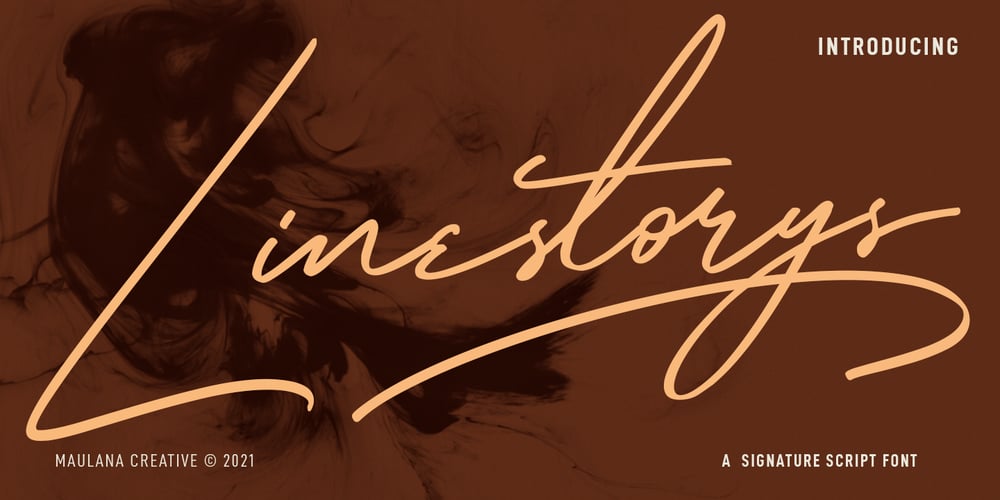
MC Linestorys
MC Linestorys font
MC Linestorys Font Family was designed by Gilang Maulana and published by Maulana Creative. MC Linestorys contains 2 styles and family package options. Linestorys is a signature script font. With light mono-line stroke, fun character with a bit of ligatures and swashes. To give you an extra creative work. Linestorys font support multilingual more than 100+ language. This font is good for logo design, Social media, Movie Titles, Books Titles, a short text even a long text letter and good for your secondary text font with sans or serif. Make a stunning work with Linestorys font. Cheers, MaulanaCreative